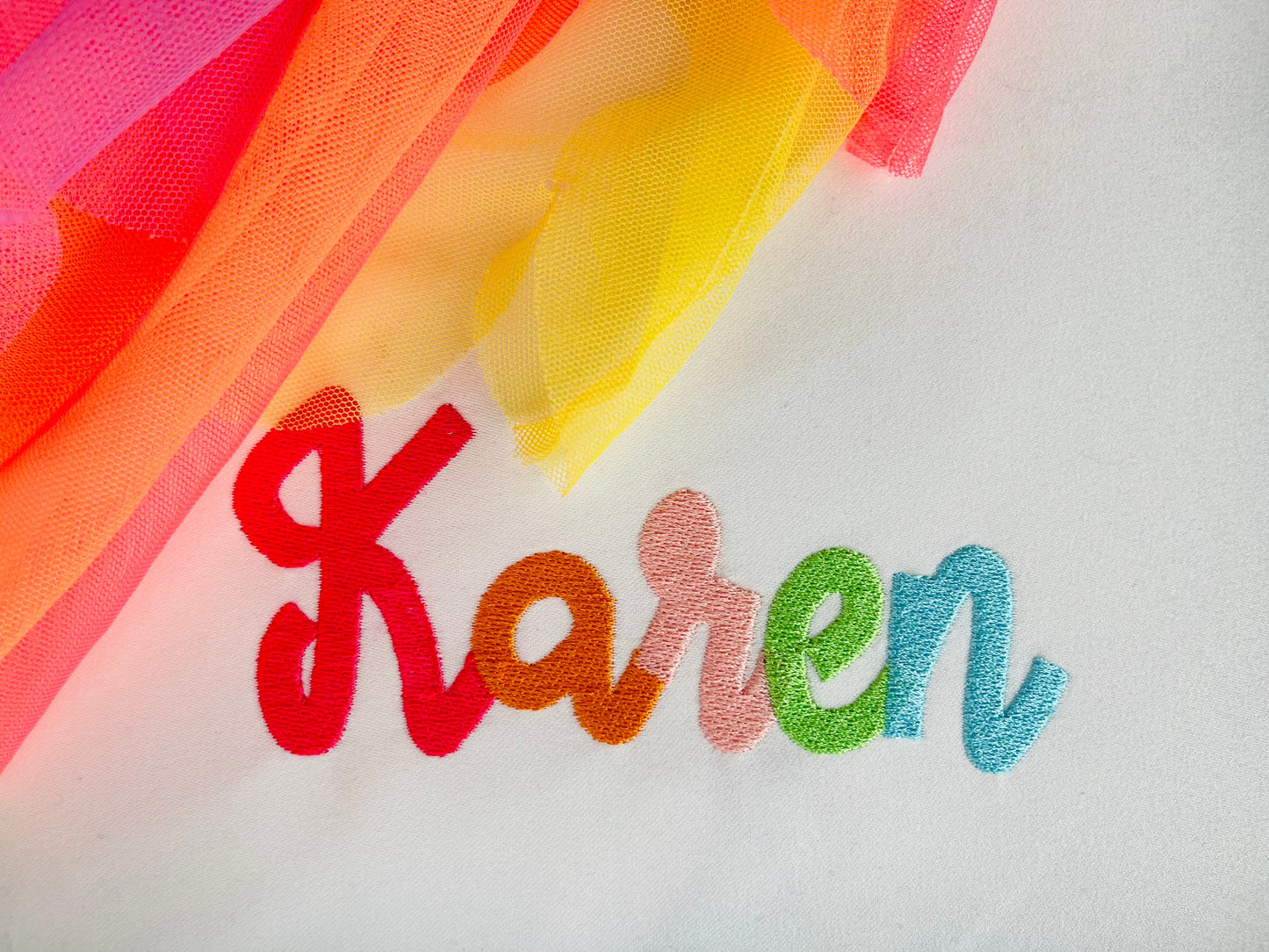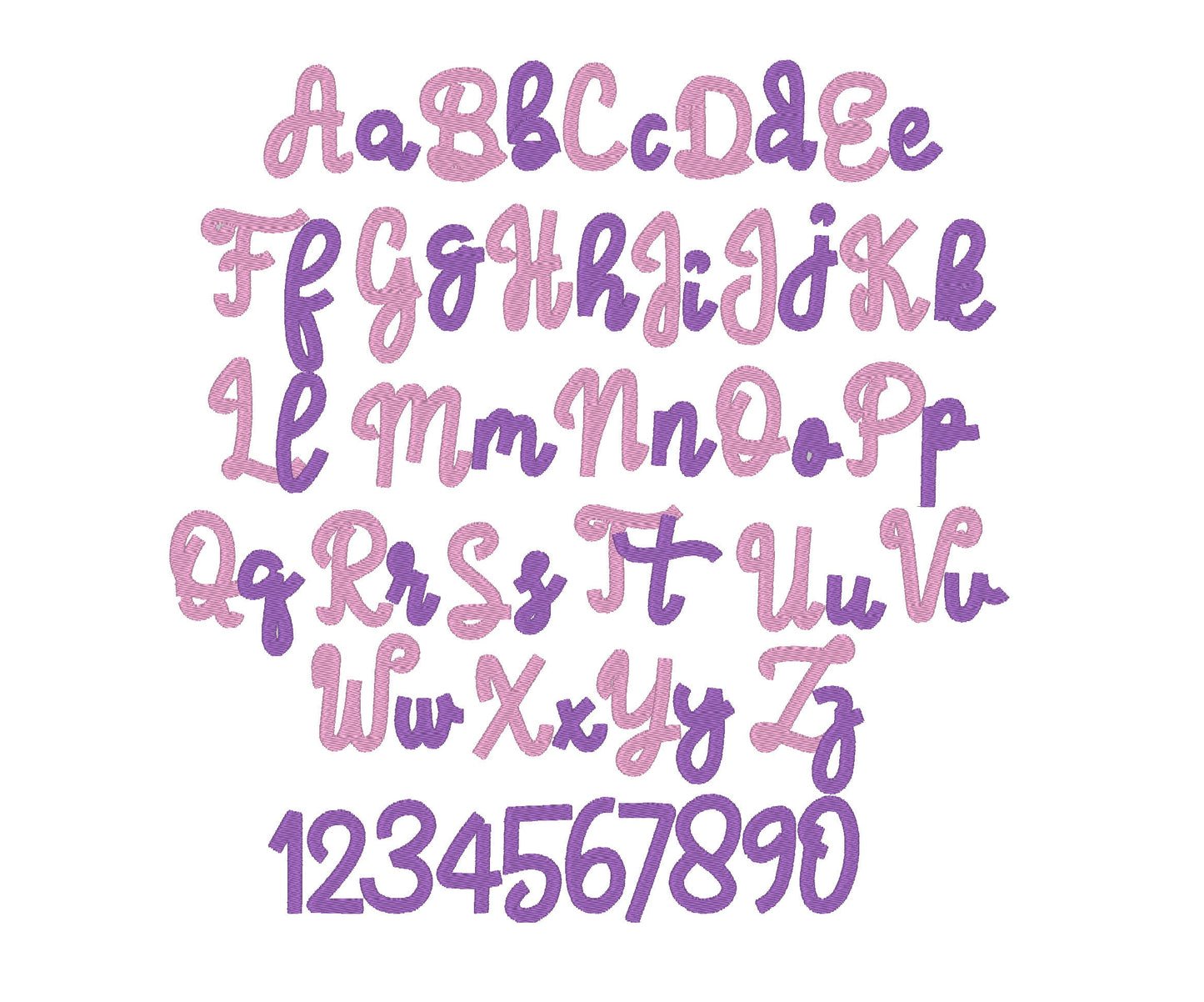
Or click to open the linkA playful fill stitch font for kids' and baby names and monograms on shirts, blankets and bags.
Uppercase and lowercase letters and numbers in six sizes: 1, 1.5, 1.8, 2.2, 2.7 and 3.2 inches.